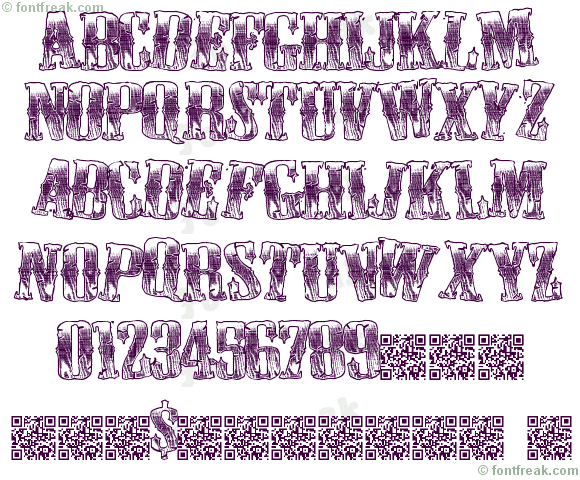
CowboyWould
CowboyWould by Xerographer Fonts is a unique display font that captures the rugged essence of the Wild West. Released in 2013, this font stands out with its distinctively rustic and adventurous aesthetic. The font features a bold, decorative style characterized by an irregular stroke weight that mimics the hand-carved lettering often associated with cowboy culture. The contrast in the strokes adds depth and personality, while the uneven spacing between letters enhances its handcrafted feel. Decorative elements, such as exaggerated serifs and whimsical flourishes, contribute to its overall charm, making it a perfect choice for creative projects that require a touch of authenticity.
Ideal for a variety of use cases, the CowboyWould font shines in applications such as Western-themed restaurant menus, vintage-style movie posters, and event flyers for country music festivals. Its playful and nostalgic nature makes it suitable for wedding invitations, especially those with a rustic or outdoor theme, as well as branding for small businesses wanting to convey a laid-back, adventurous vibe. Graphic designers, small business owners, and content creators will find this font particularly appealing as it lends a unique character to their work, helping to capture attention and evoke emotion.